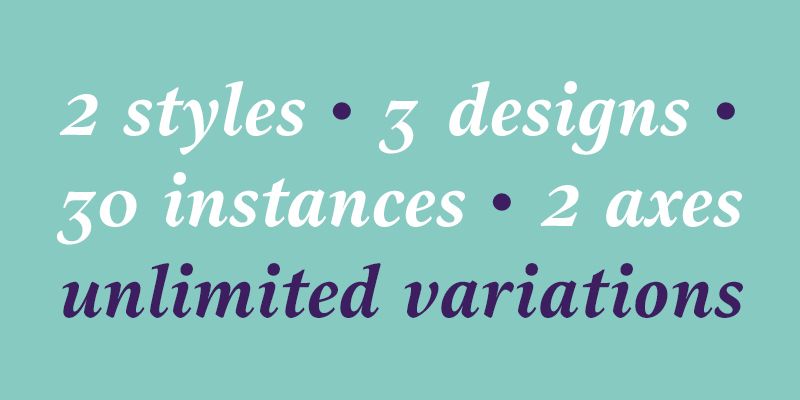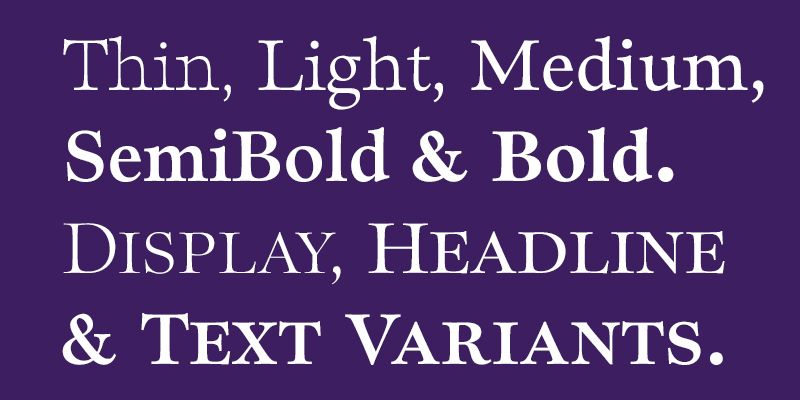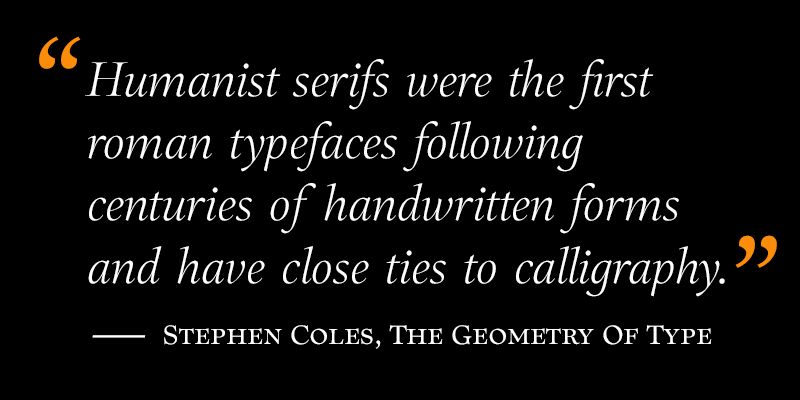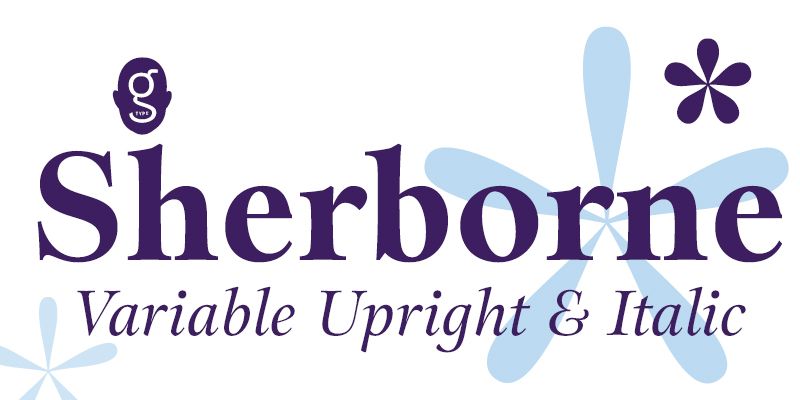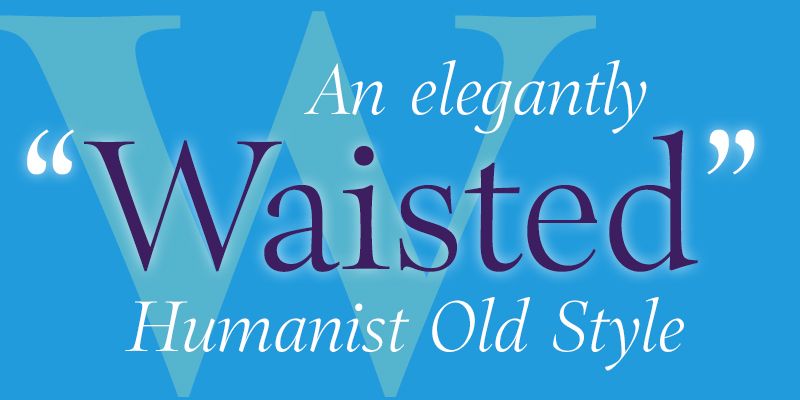
Sherborne references its calligraphic roots, featuring tapered stems, angled axes and bracketed serifs so could be considered a Humanist Old Style…with a distinctly modern twist! Upright & Italic Variable Fonts with 2 axes: weight & optical size.